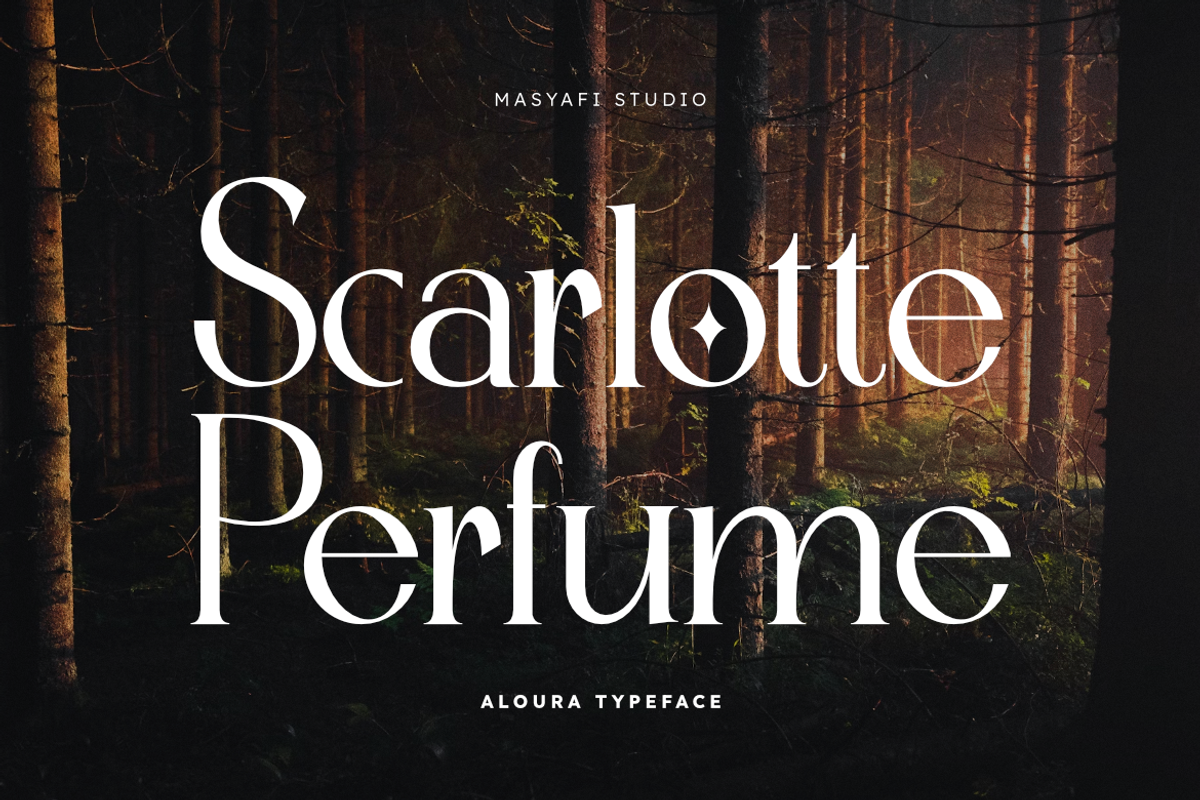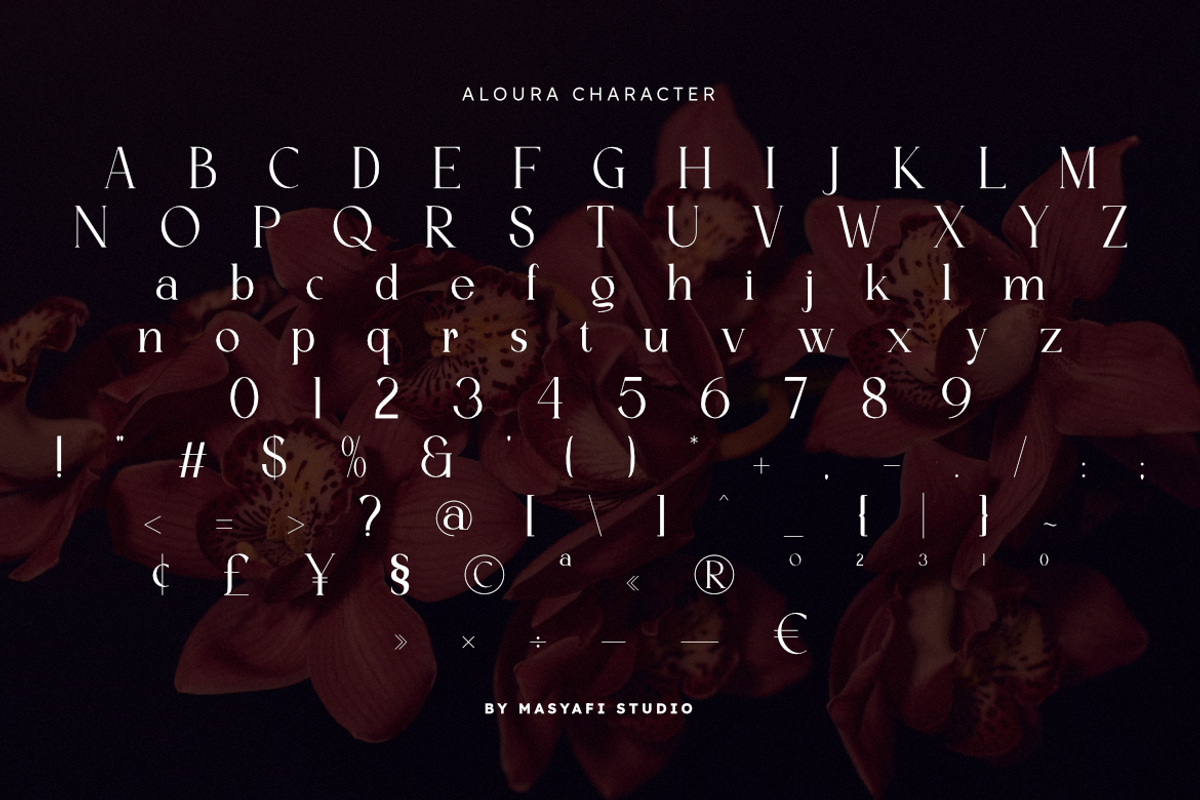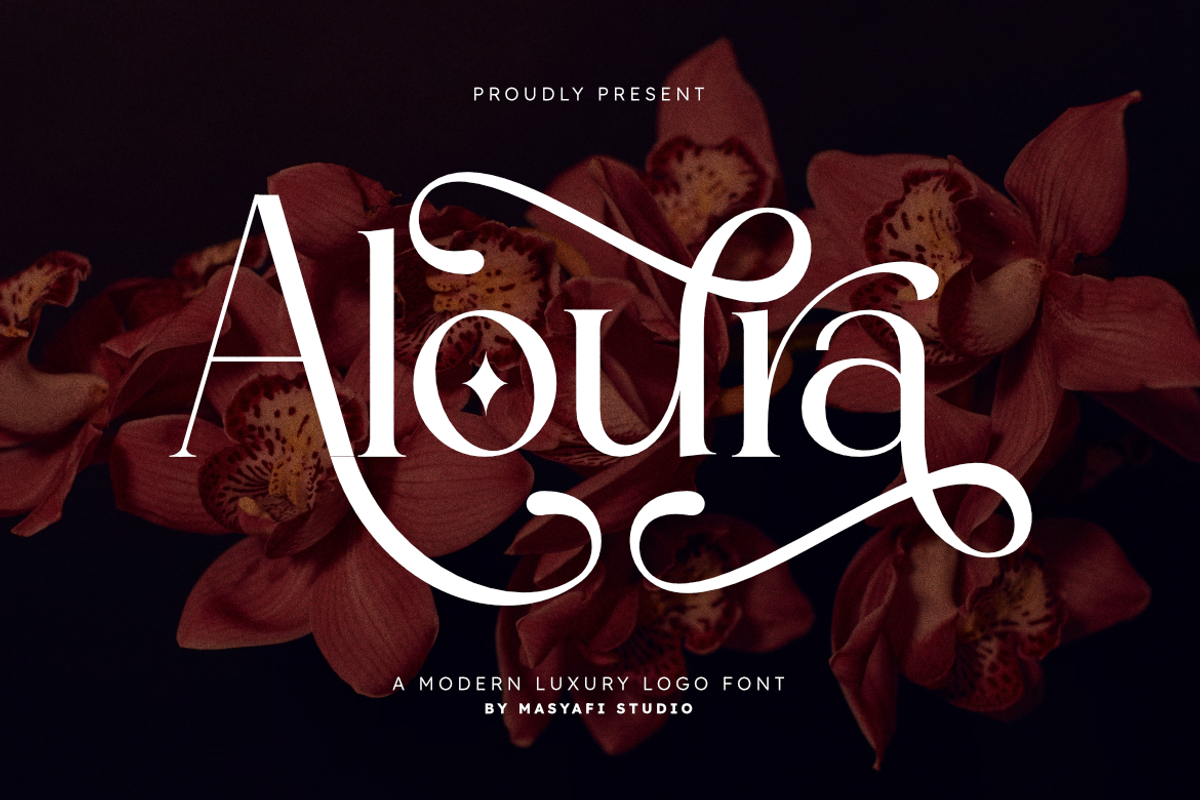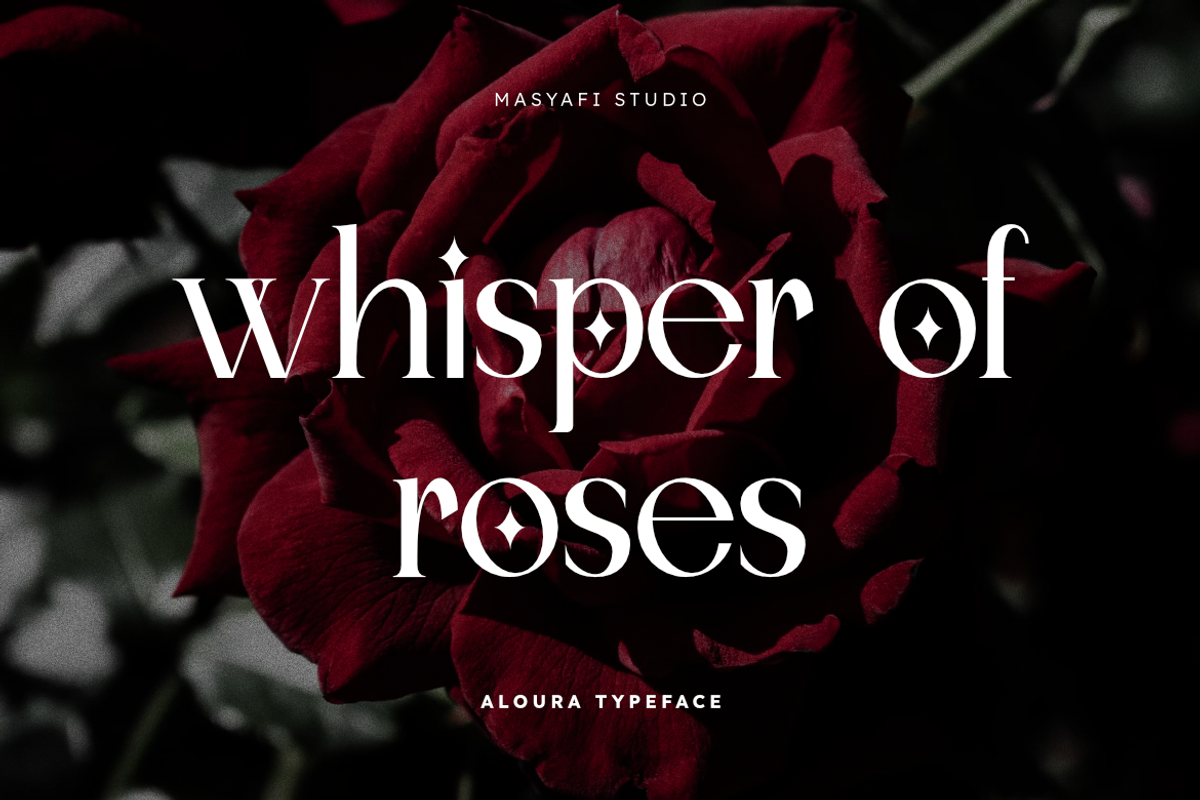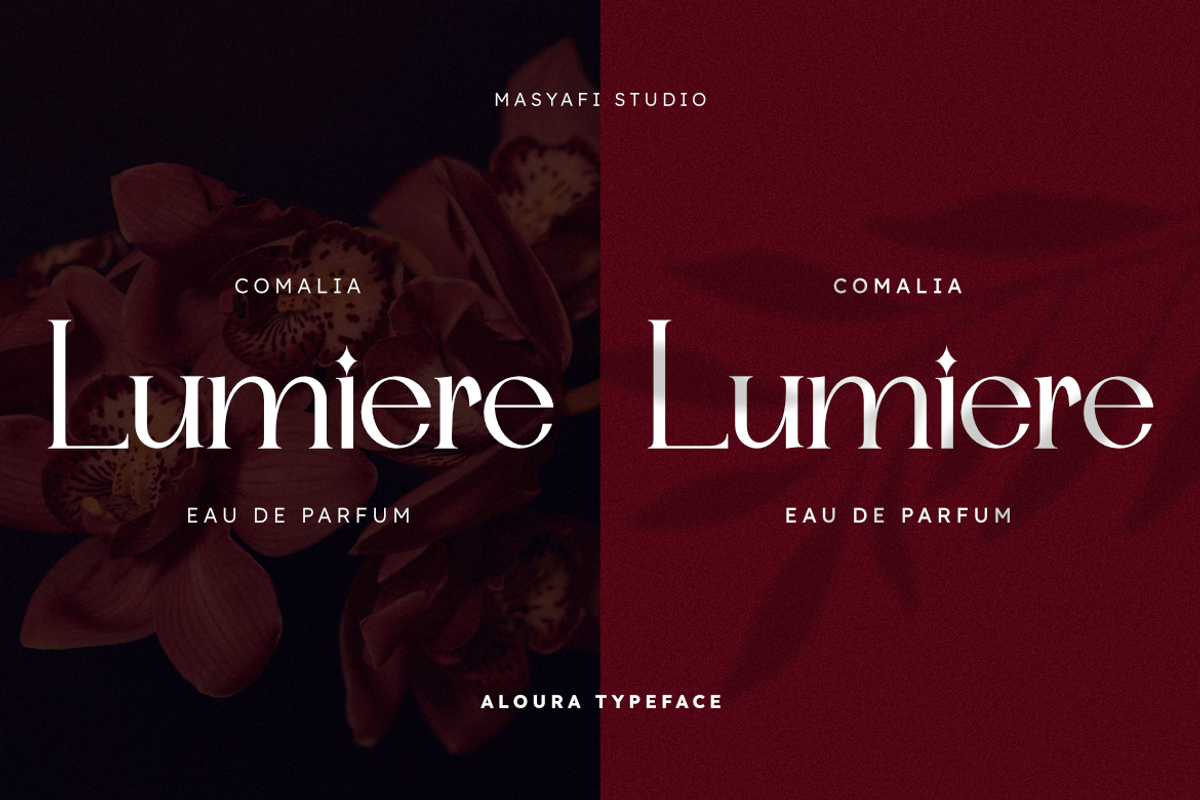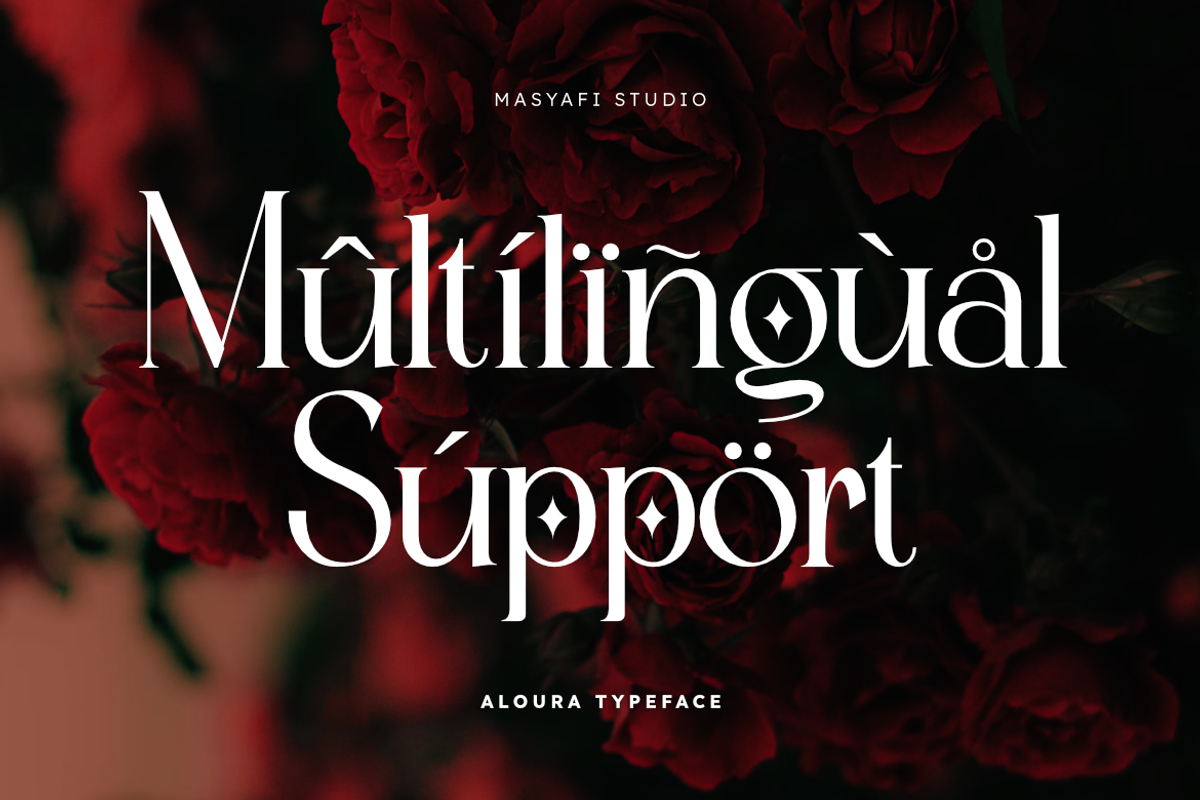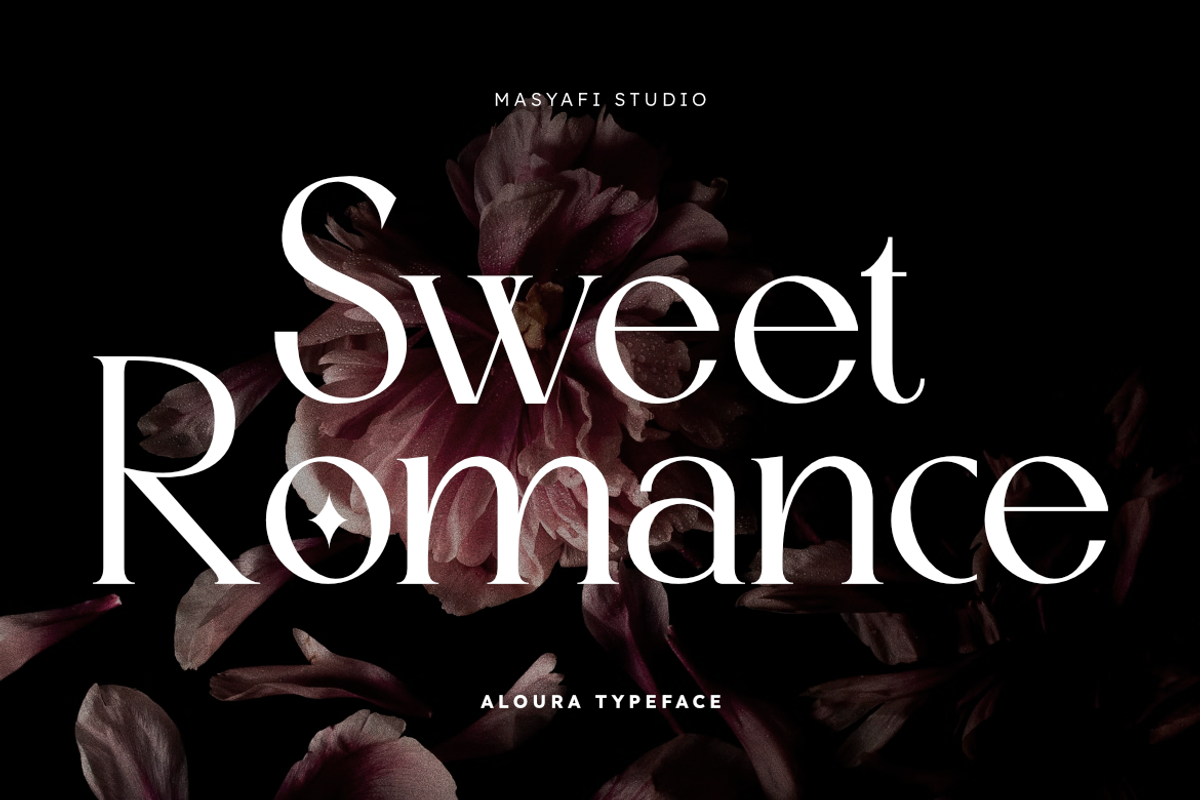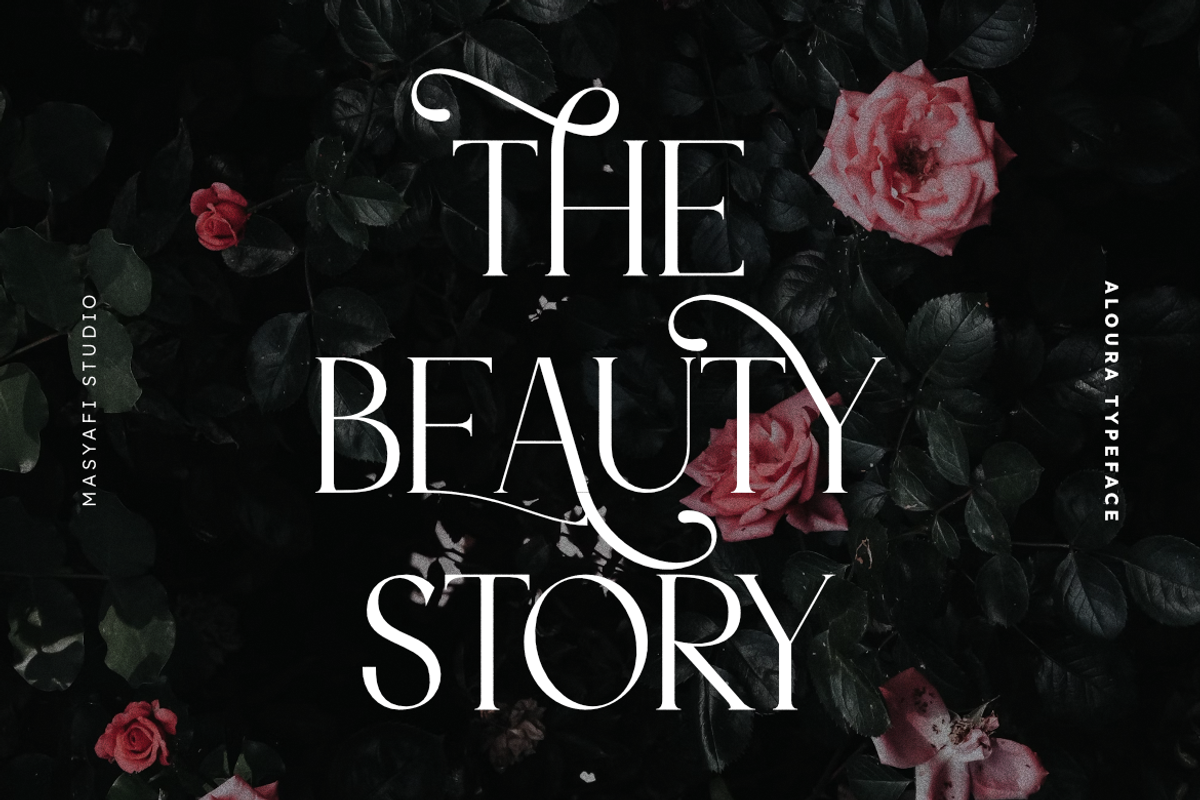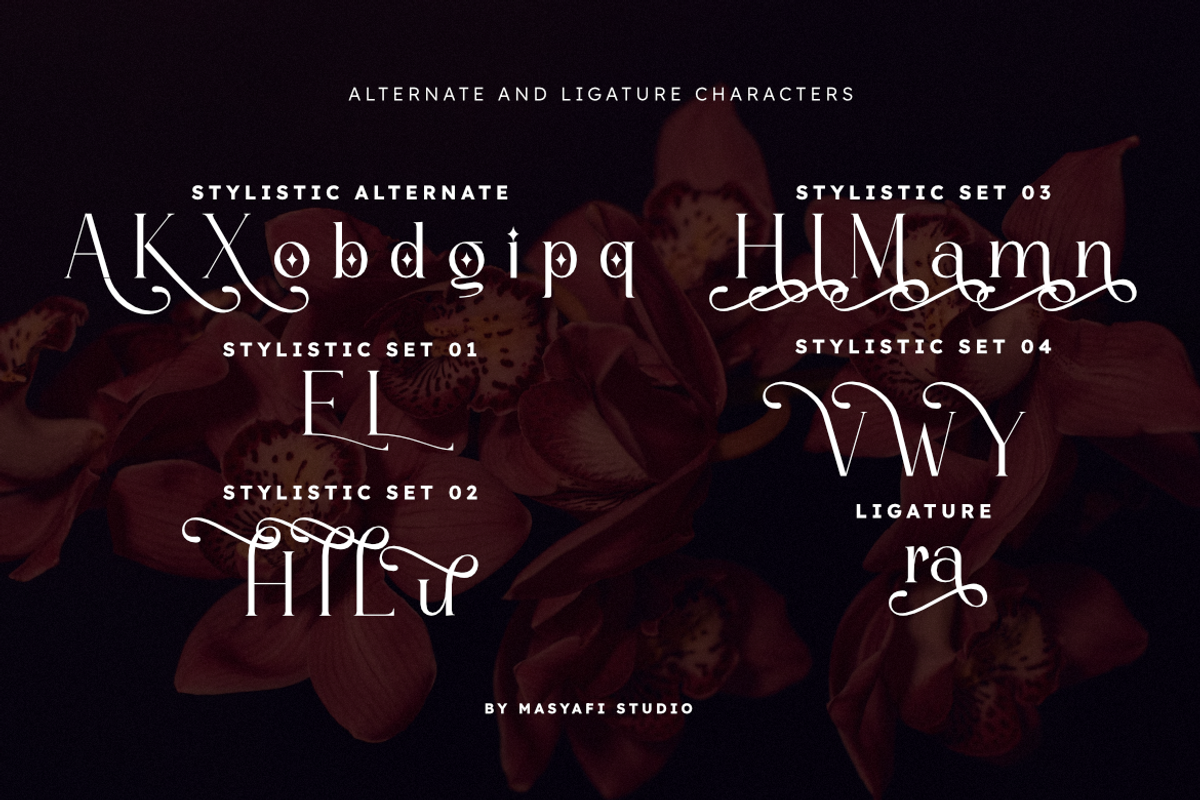
Aloura - Luxury Logo Font
Aloura is a modern luxury serif font with elegant curves and stylish swashes. This typeface is designed to bring sophistication and high-class aesthetics to your projects. Its refined letterforms make it ideal for luxury branding, fashion identity, editorial layouts, logos, invitations, packaging, and digital design.
With unique alternates and decorative touches, Aloura adds a premium and artistic feel that will make your designs stand out.
Uppercase & lowercase
Alternates & stylistic swashes
Numerals and punctuation